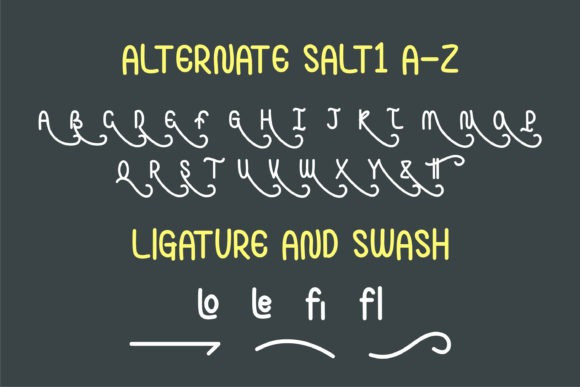
Rettema Font
Rettema Display Font is a cute and quirky display font. It will add an incredibly joyful touch to your designs. Add this beautiful typeface to each of your creative ideas, and notice how it makes them stand out!